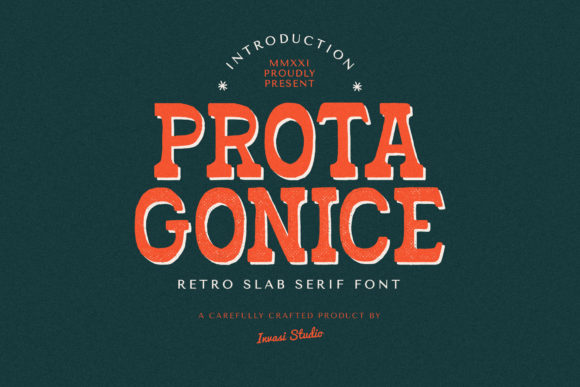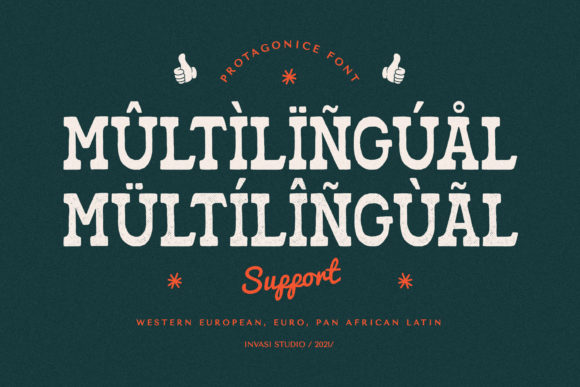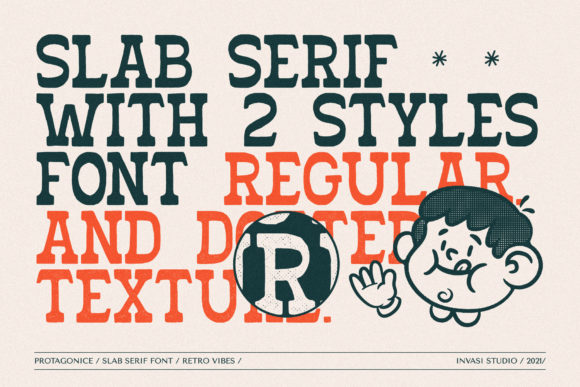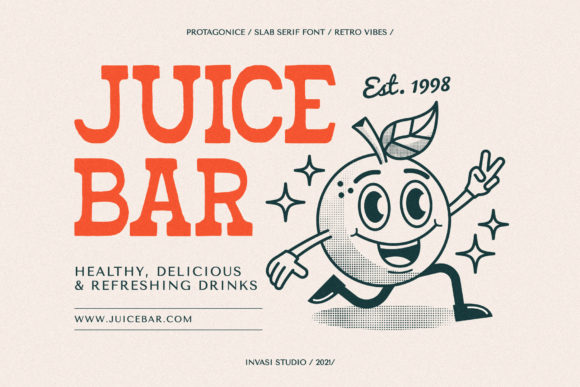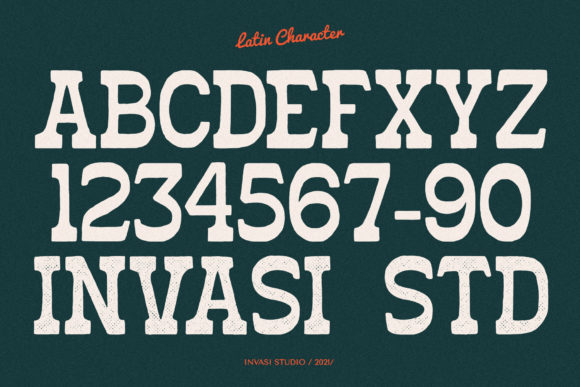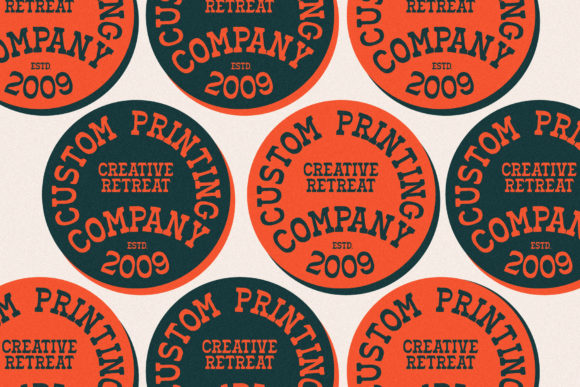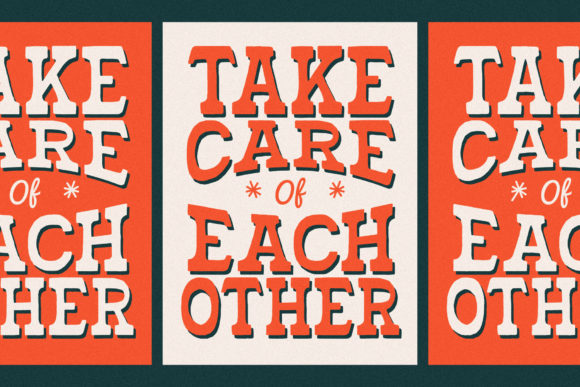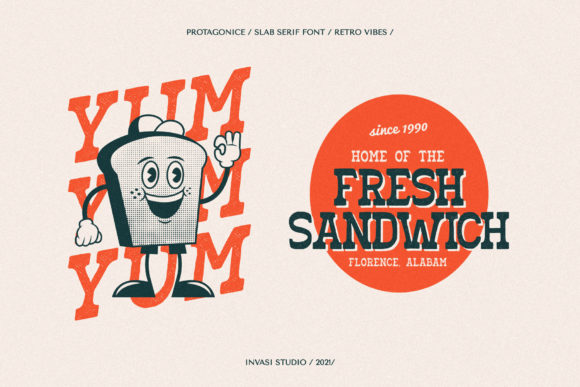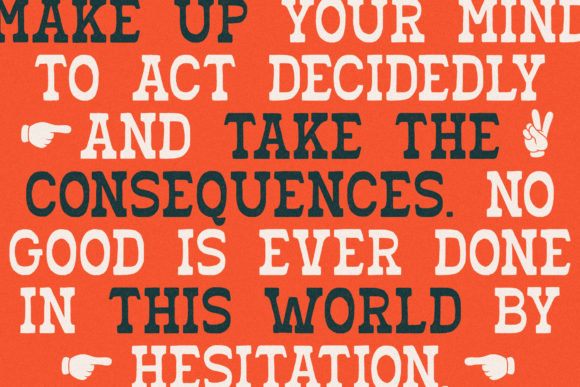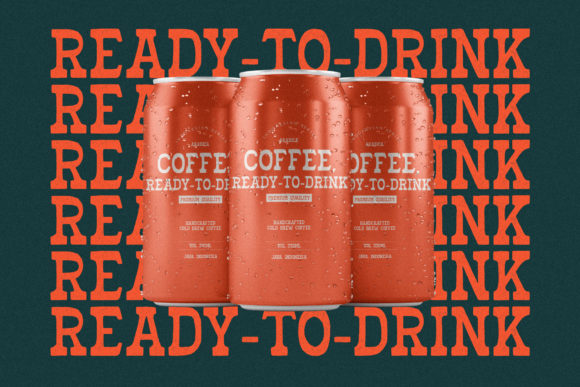
Prota Gonice
Ghaomiec: A Classic Slab Serif Font
Ghaomiec is a distinctive slab serif font that embodies classic design principles. This versatile typeface is a valuable asset to any font library. Moreover, it has the potential to elevate a wide range of creations.
Key Features of Ghaomiec
• Classic Design: Features timeless letterforms that evoke tradition and elegance.
• Slab Serif Structure: Incorporates thick, rectangular serifs typical of slab serif fonts.
• Versatile Application: Suitable for various projects, from print to digital media.
• Enhancement Quality: Designed to improve the visual appeal of creative projects.
• Timeless Aesthetic: Offers a look that remains relevant across changing design trends.
Ideal Uses for Ghaomiec
Ghaomiec’s unique characteristics make it well-suited for:
• Editorial designs and book covers
• Branding and logo creation
• Advertising and promotional materials
• Website headers and digital content
• Packaging design for products aiming for a classic look
When incorporating Ghaomiec into your designs, consider these tips:
• Use for headlines to showcase its classic slab serif style
• Experiment with sizes to highlight the font’s unique details
• Pair with simpler sans-serif fonts for body text to create contrast
• Take advantage of its versatility across various themes and styles
Ghaomiec is an excellent choice for designers seeking a classic slab serif font. Its ability to enhance various projects makes it stand out in typography. Whether you’re working on logo designs or creating layouts for editorial content, Ghaomiec offers a blend of classic style and versatility.
Furthermore, adding Ghaomiec to your font library can elevate your designs with its classic slab serif style. From striking headlines to engaging branding elements, this font creates impactful typography. It resonates with audiences seeking a timeless aesthetic. Additionally, it’s versatile enough for various contexts, from vintage-inspired designs to contemporary layouts needing a classic touch.
In conclusion, Ghaomiec adapts well to different moods. It can create a magical atmosphere or aim for a more thoughtful mood in your designs. Its flexibility allows it to work in both vintage-style projects and contemporary designs needing a classic touch. Lastly, for those wanting to add timelessness to their work, this font can complement vintage-inspired creations with a unique, classic twist.